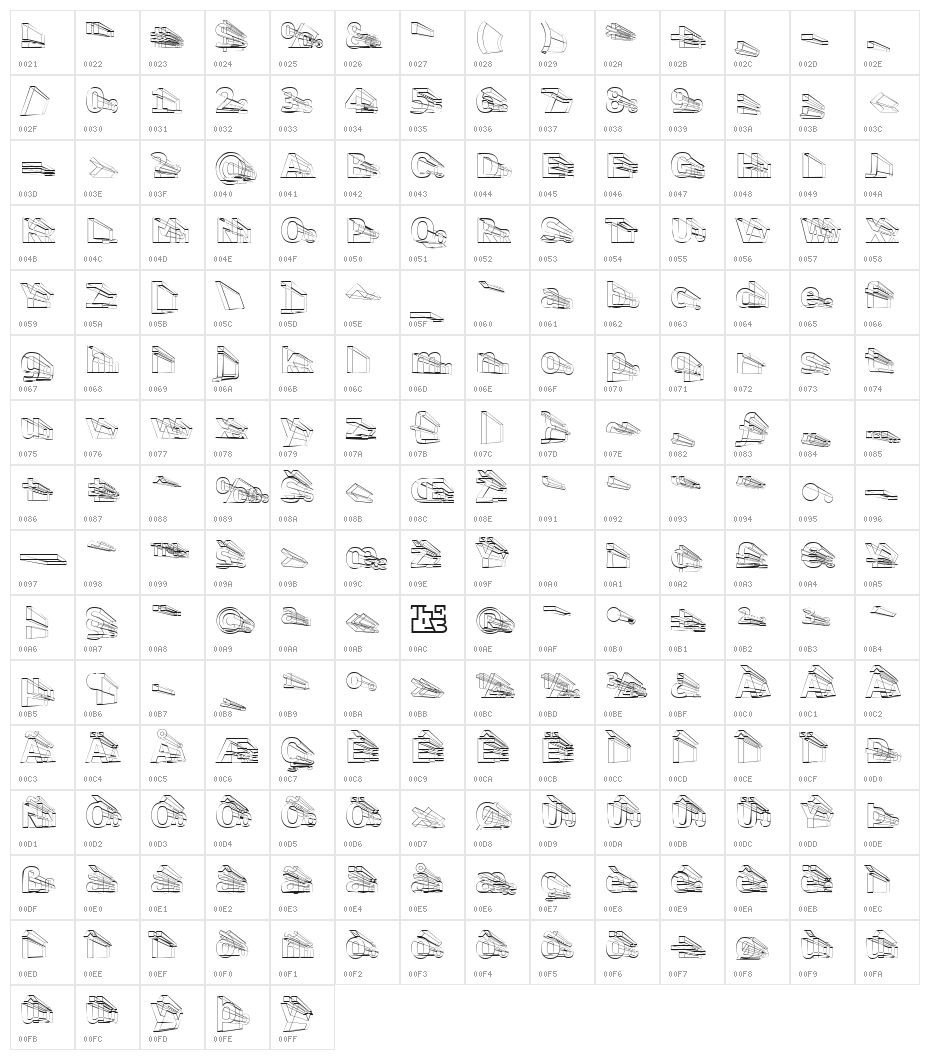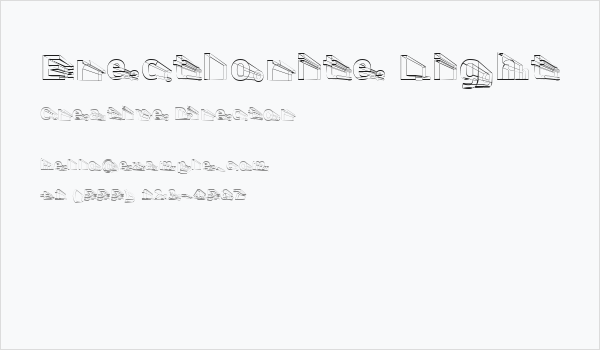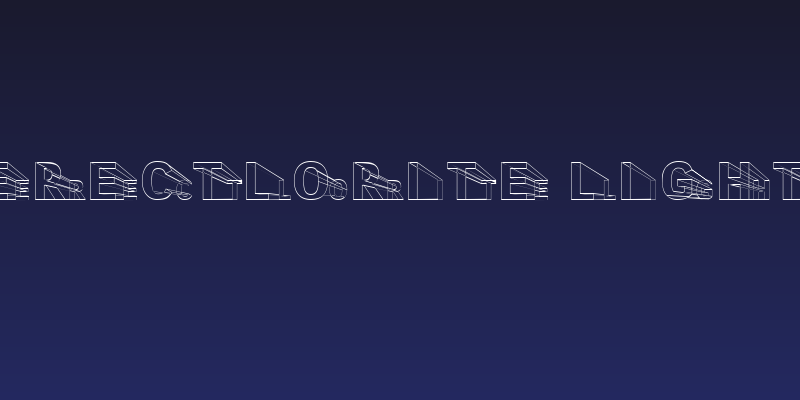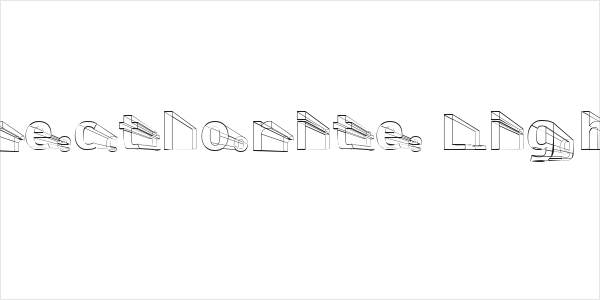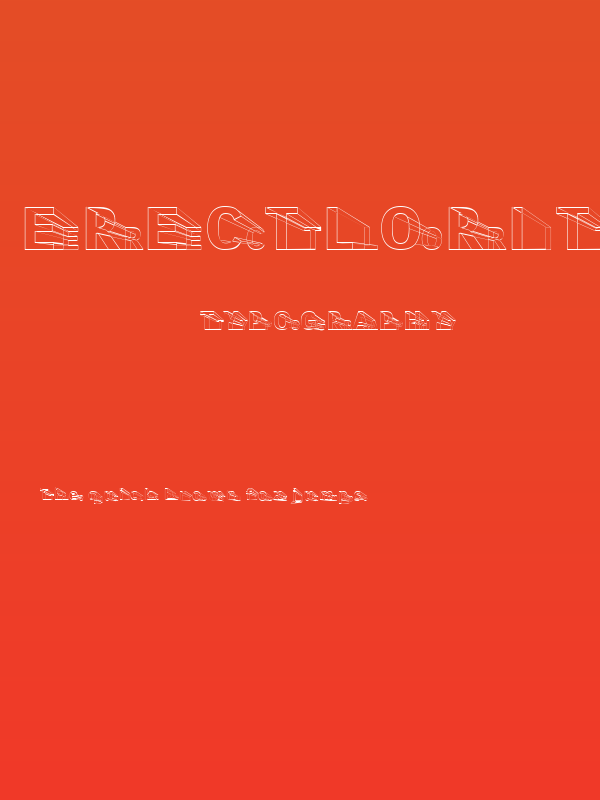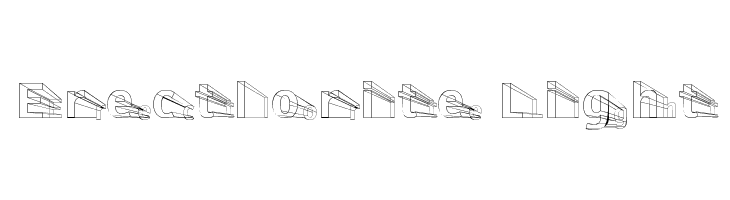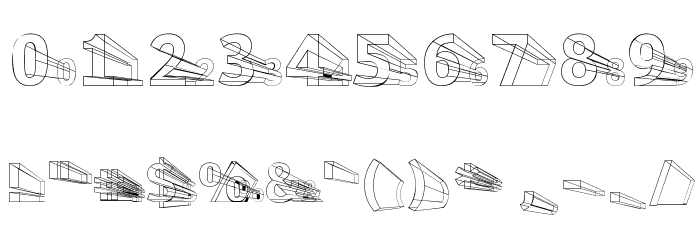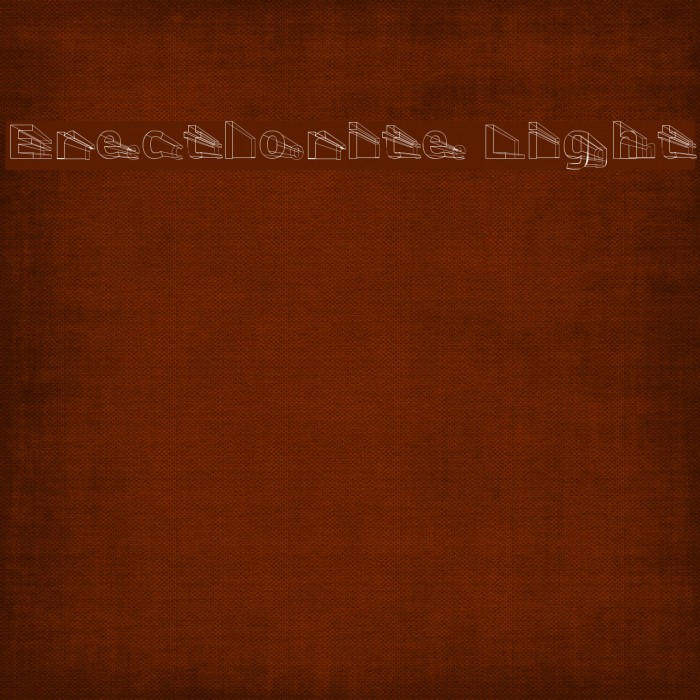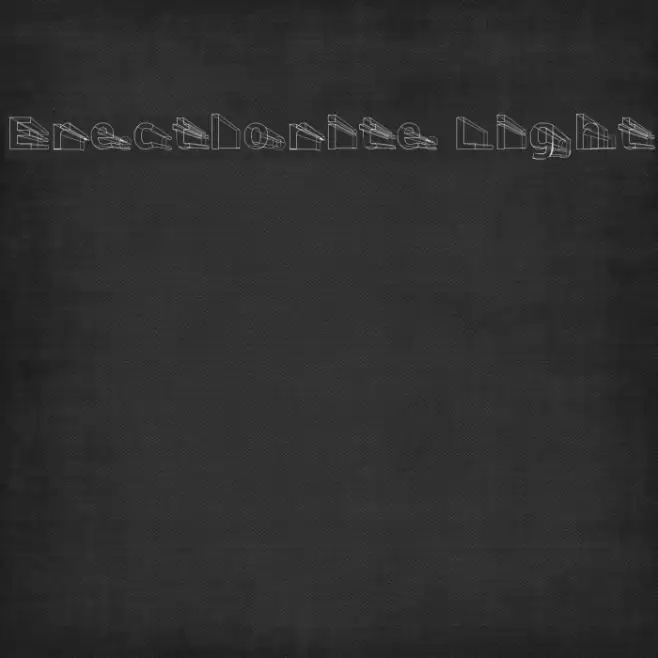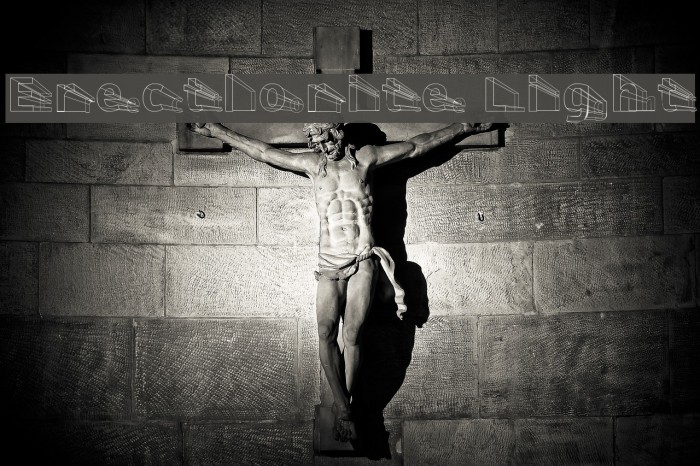
Erectlorite Light Font
Erectlorite Light Description
This font features a unique, three-dimensional outline style that gives each character a sense of depth and structure. The letters are constructed with overlapping lines, creating a complex and intricate appearance. The uppercase and lowercase characters maintain a consistent design, with geometric shapes and angular edges. Numbers and special characters follow the same design principles, ensuring a cohesive look across all elements. This font's architectural feel makes it stand out, offering a modern and innovative aesthetic.
| Use Case | Logos, Posters, Branding |
| Proposed Projects | Ideal for architectural branding, modern art posters, and innovative tech company logos. |